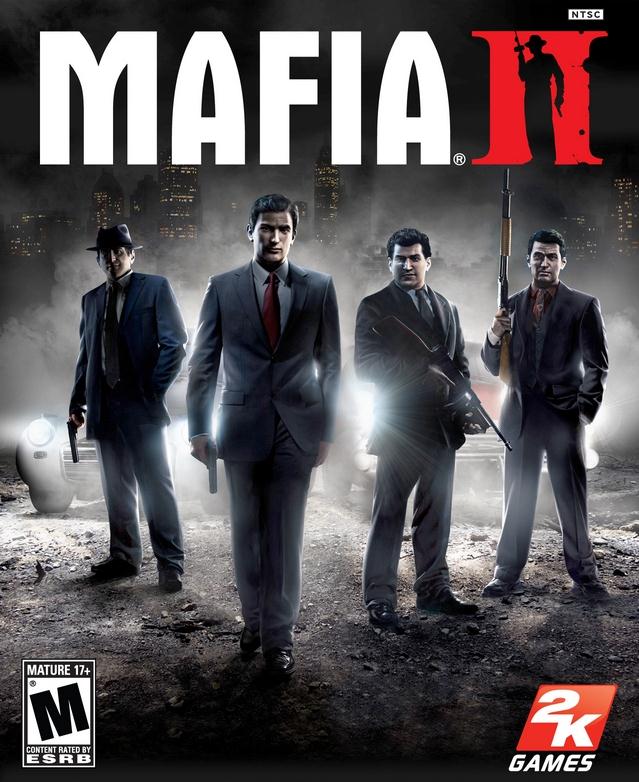
Mafia (video game) Font
Fonts in UseMafia is a third-person action-adventure video game developed by 2K Czech and published by 2K Games in 2002. The game is set in the 1930s and follows the story of a taxi driver named Tommy Angelo who becomes involved with the Mafia.
The cover art for the August 2010 release of Mafia II features the game's logo in Aurora Bold Condensed, a narrow sans-serif font with a large X-height that originated from Germany.